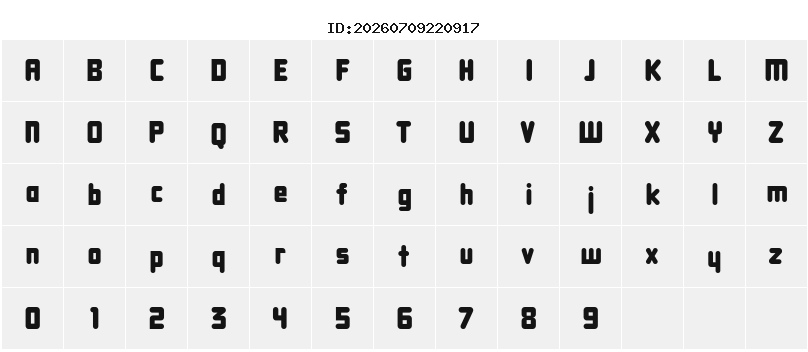
• Font Name: DBXLNightfever
• Font ID: Fontographer 4.7 DBXLNightfever Normal
• Full Font Name: DBXLNightfever Normal
• PostScript Name: DBXLNightfeverNormal
About DBXLNightfever.ttf
DBXLNightfever.ttf is a modern, elegant sans-serif font designed for ultimate readability and visual harmony. Perfect for branding, headlines, web design, and print materials.